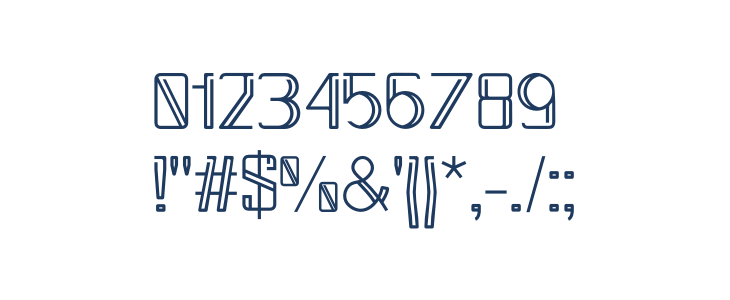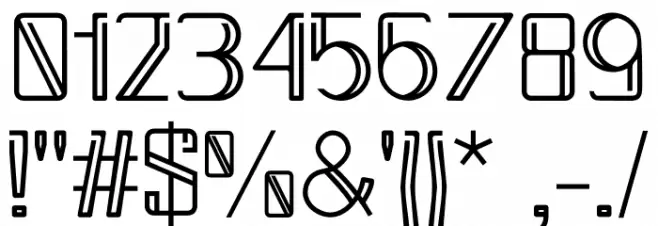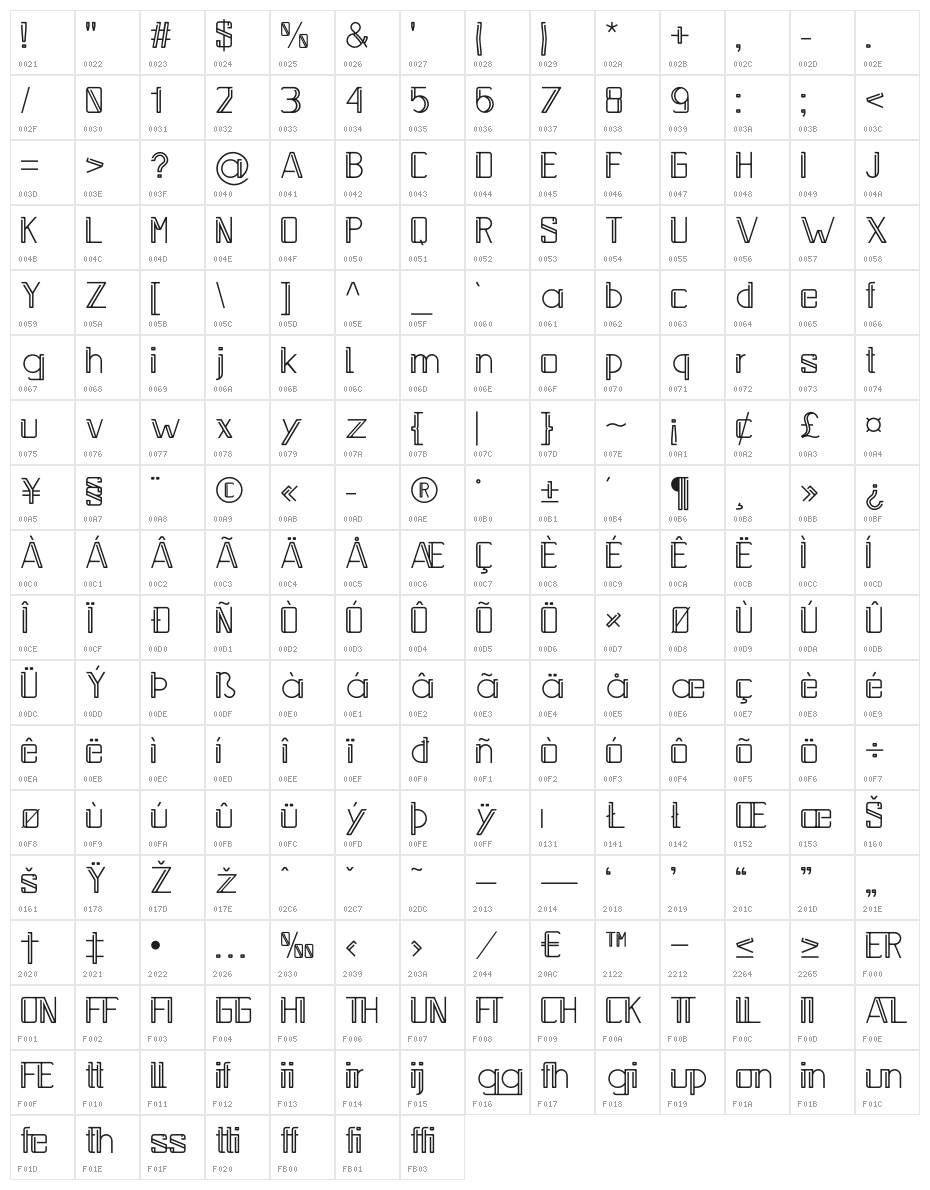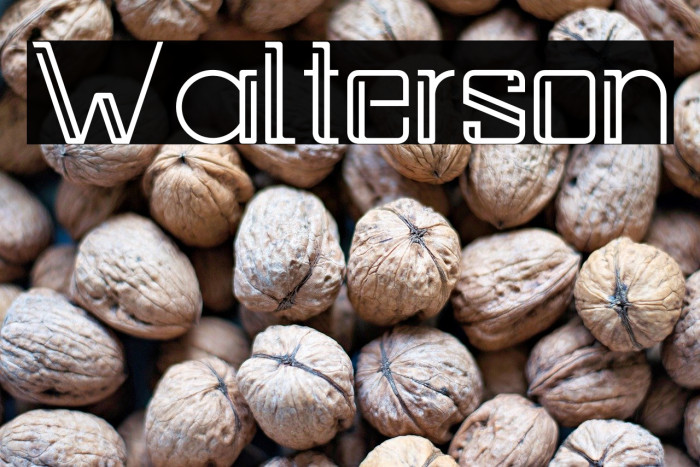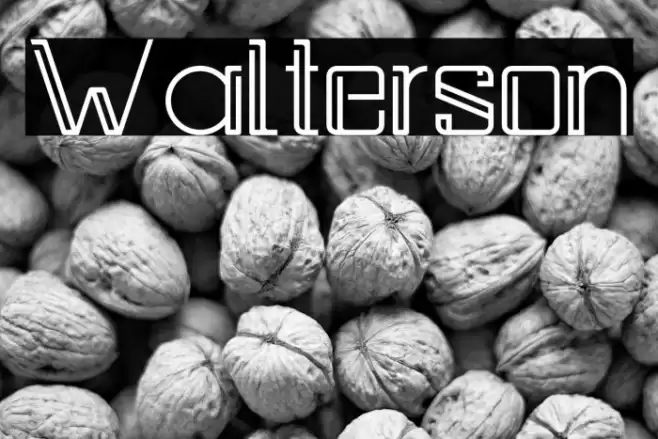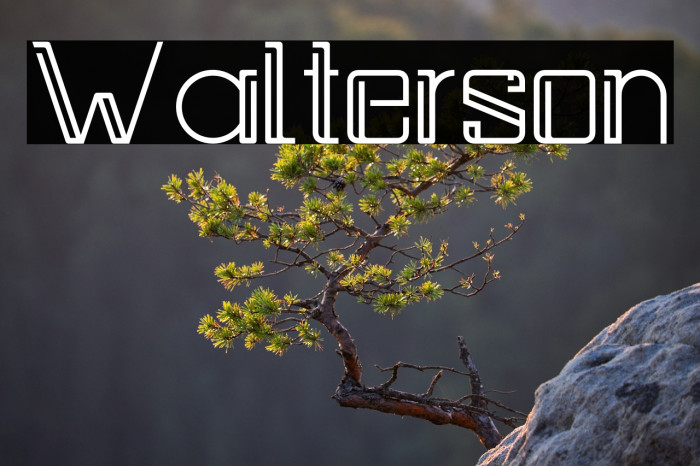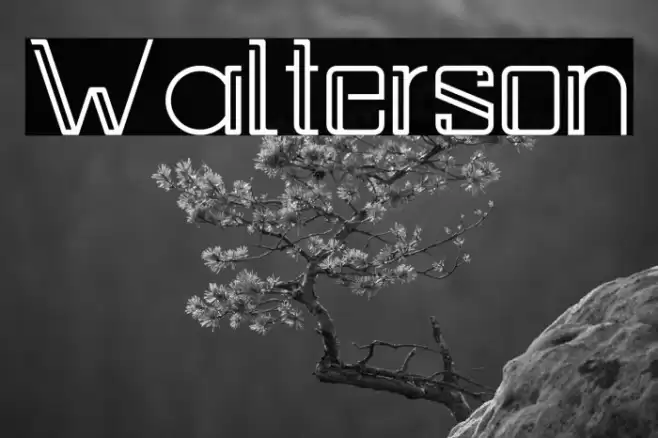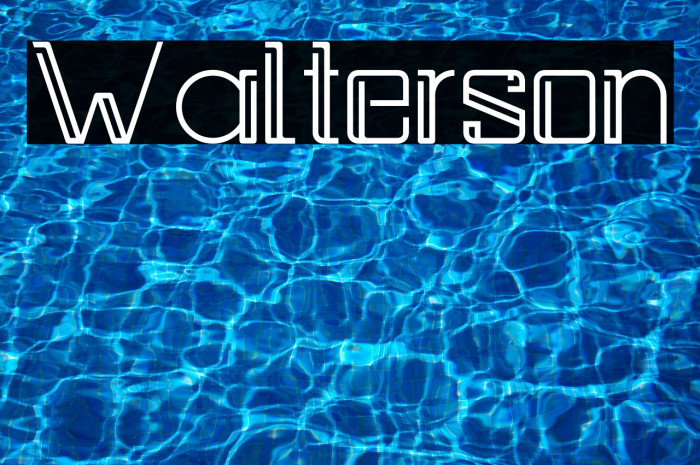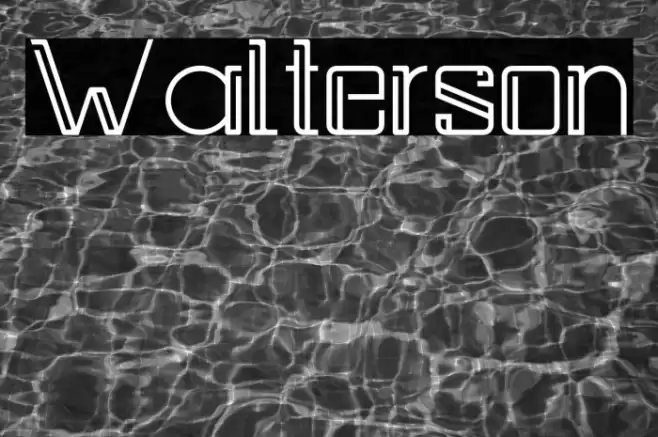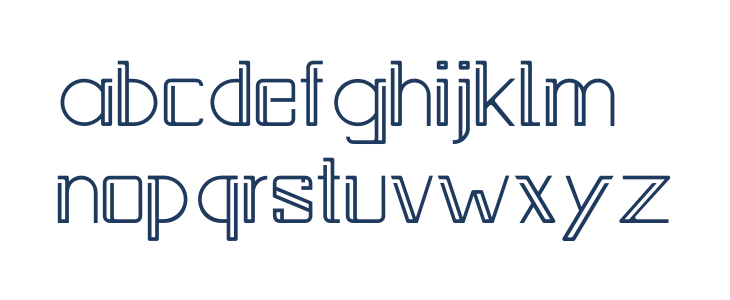
Walterson Font
Walterson Description
This font features a unique, geometric design with a modern and futuristic feel. The characters are constructed with clean, straight lines and sharp angles, creating an open and airy appearance. The uppercase letters exhibit a consistent height and width, while the lowercase letters maintain a similar style with slightly softer curves. The numerals are distinct and easily readable, following the same geometric pattern. Special characters are designed to match the overall aesthetic, ensuring a cohesive look across all text. This font's open structure and minimalistic design make it suitable for a variety of creative applications.
| Overall Style | Futuristic, Geometric |
| Use Case | Headlines, Logos, Digital Interfaces |
| Proposed Projects | Ideal for tech branding, modern posters, futuristic designs, and digital interfaces. |